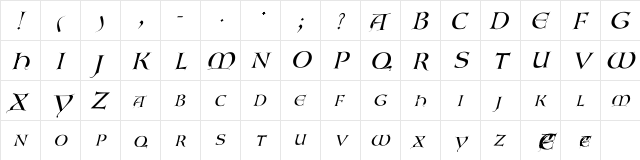
Lombardic-Normal Italic Italic
Design Context for Lombardic-Normal Italic Typeface
Lombardic-Normal Italic is a composed and adaptable typeface that performs quietly and consistently across a wide range of design contexts. The slanted form adds forward momentum and visual energy.
Pro Tip: Try Lombardic-Normal Italic for annotation and caption copy alongside an upright companion — the contrast in angle creates a dynamic but ordered typographic system.